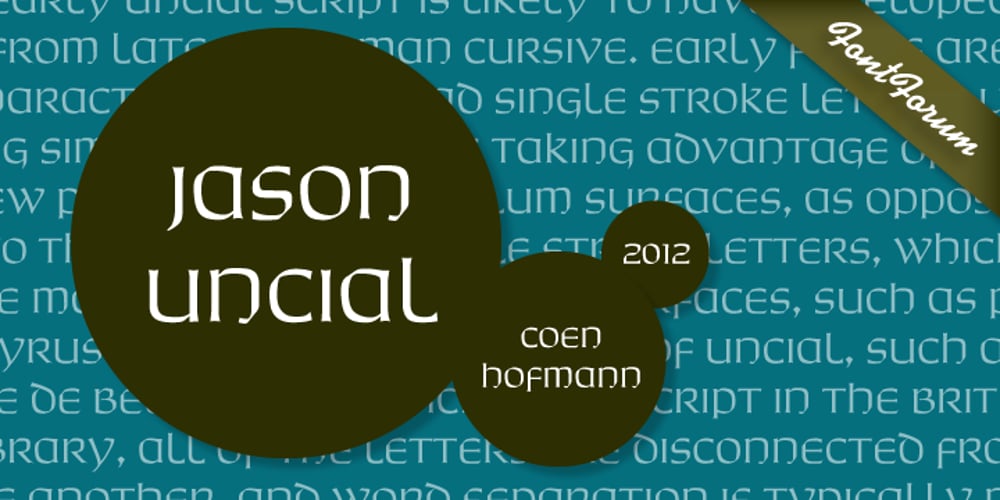
Jason Uncial
Jason Uncial font
Jason Uncial Font Family was designed by Coen Hofmann and published by URW Type Foundry. Jason Uncial contains 2 styles and family package options. Jason Uncial, a unicase font, was created by Dutch designer Coen Hofmann. Uncial hand writing began to spread in Europe at the time of the late Roman Empire (200 A.D.). It influenced both the Carolingian Minuscule as well as our present lower case letter forms. Uncial fonts are still very much in use. It is used for headlines, display, titles, certificates, and not surprisingly, very much in Ireland or for anything with a Gaelic/Irish or Celtic touch.